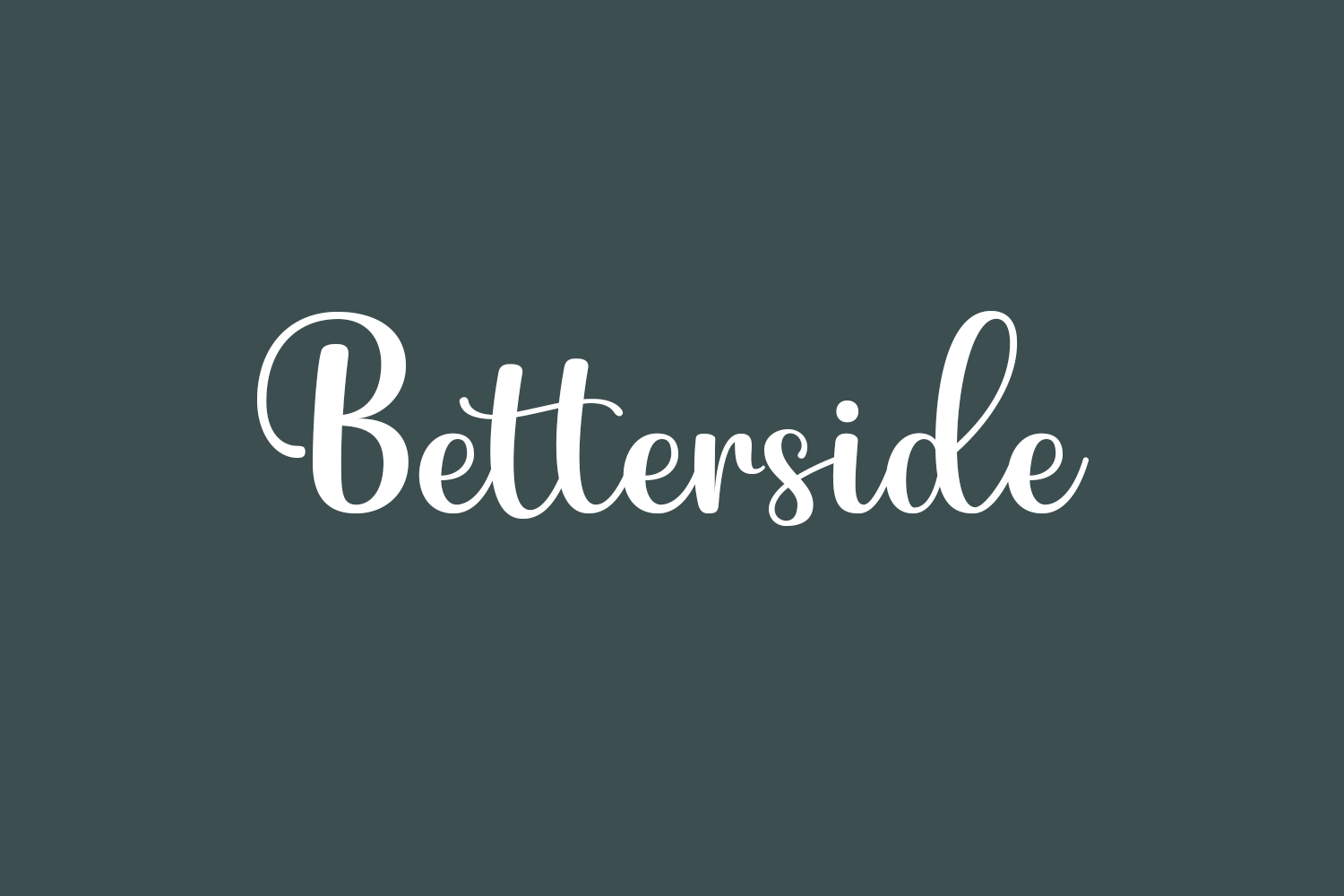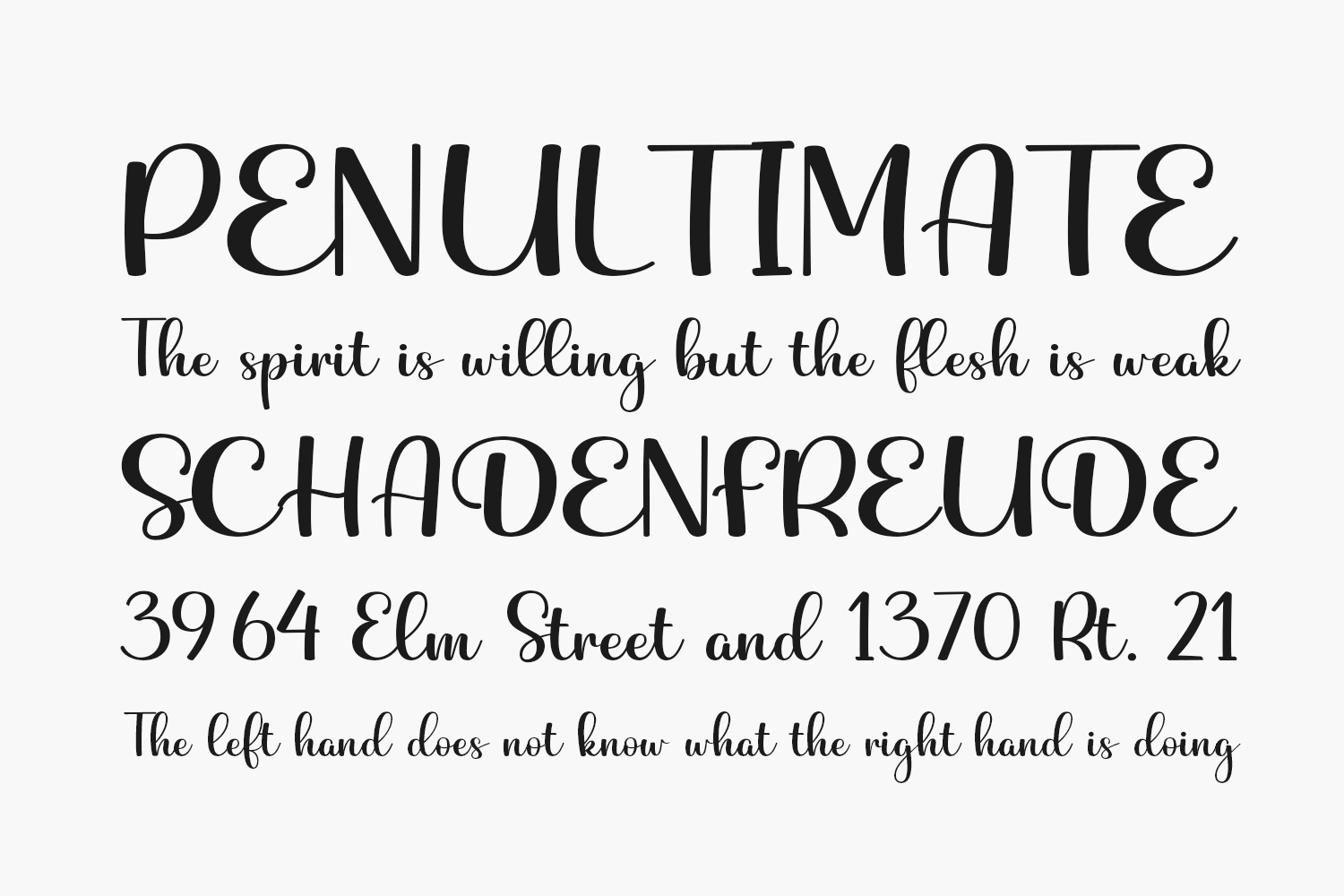
Betterside Free Font is a sweet and cursive handwritten font. This gentle font will look gorgeous on a variety of design ideas. It will add a joyful and romantic touch to each of your projects. Betterside Free Font was designed by Letterflow Studio and is free for personal use only. Please purchase the full version for commercial use.